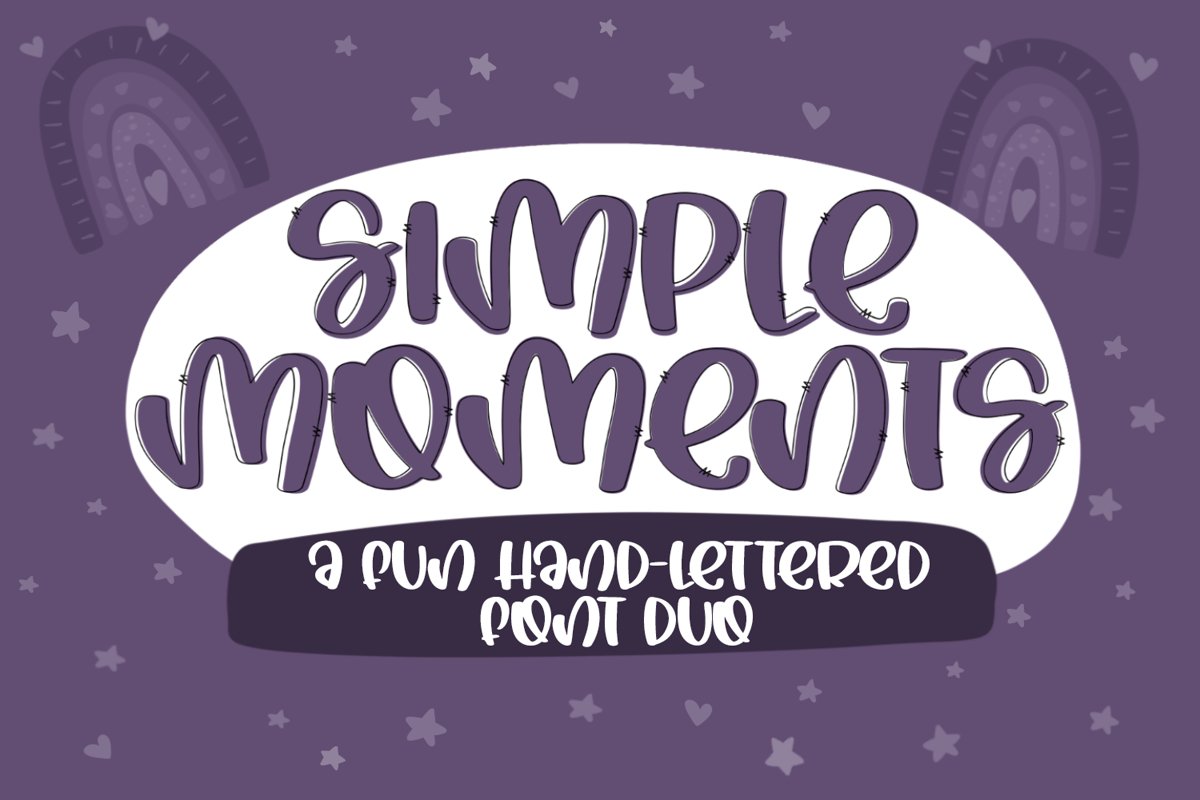
Simple Moments - A Fun Handlettered Font Duo
Simple Moments is a cute handlettered font, made specifically for crafters with clean lines and minimal nodes.